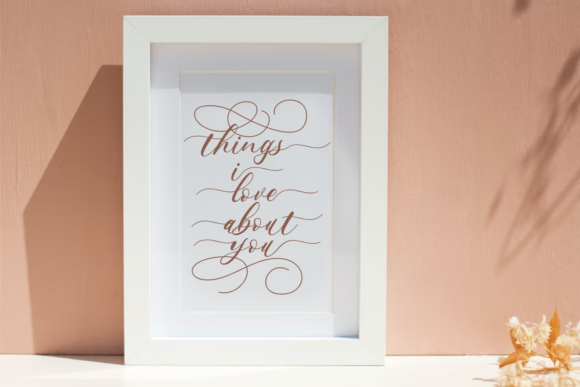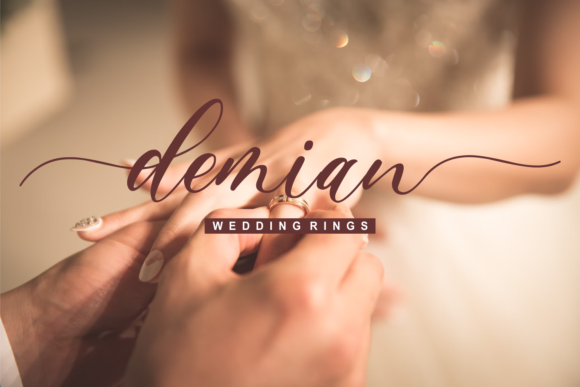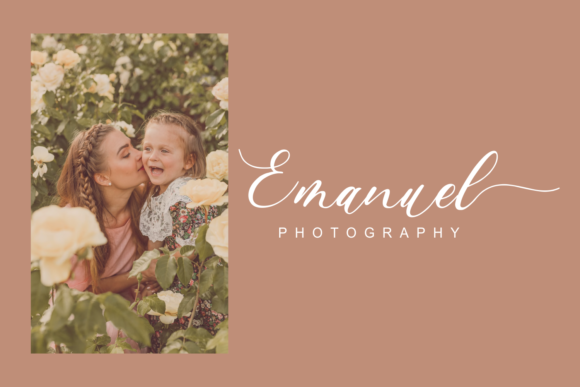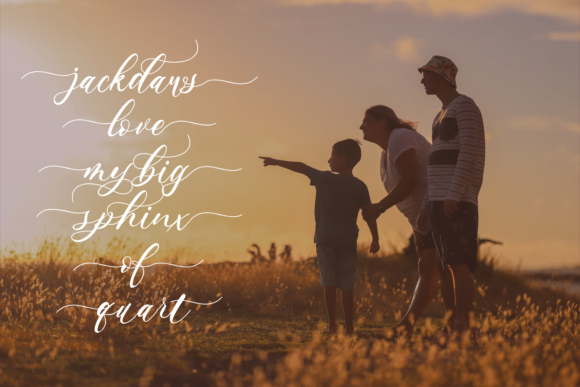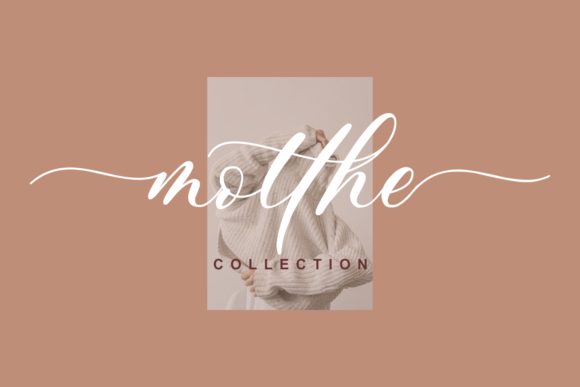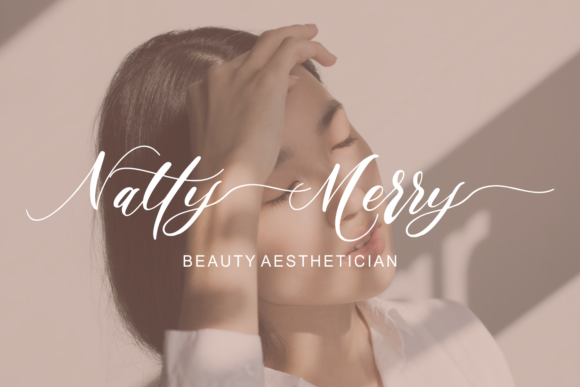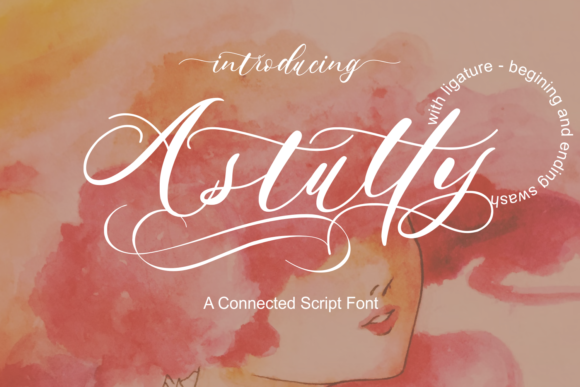
The Astutty Font: A Delicate and Fashionable Script for Creative Projects
I’ll never forget the time I was working on a branding project for a fashion client, and I just couldn’t seem to find the right font. The client wanted something elegant, yet modern; delicate, yet impactful. I scoured the internet, tried out dozens of fonts, but nothing seemed quite right. That was until I stumbled upon the Astutty font. ✨
It was love at first sight! The Astutty font is a delicate and fashionable script font that has become a staple in my design toolkit. In this article, I’ll share with you why I love this font, its features, and how to get the most out of it in your creative projects.
An Honest Review of Astutty Font
What I Love About Astutty Font
• ✨ Delicate and elegant: Astutty font is perfect for projects that require a touch of sophistication and glamour.
• ✅ Highly versatile: It can be used for a wide range of creative projects, from logos and t-shirt printing to creative products and more.
• 💫 Unique character: The font has a distinct personality that sets it apart from other script fonts.
• 🎨 OpenType features: Astutty font comes with a range of OpenType features, including glyphs and stylistic alternates, that allow for endless creative possibilities.
While I absolutely love the Astutty font, there are a few quirks to be aware of: 🤔
• ⚠️ Limited use in body text: Due to its delicate nature, Astutty font may not be the best choice for body text, especially in smaller sizes.
• ⚠️ Requires careful kerning: As with any script font, kerning can be a bit tricky, especially when using it in combination with other fonts.
The Story Behind Astutty Font
The Astutty font was designed by a team of typographers who wanted to create a font that would capture the essence of modern elegance. Inspired by the latest fashion trends and design movements, they crafted a font that’s both delicate and impactful.
Q: What is the Astutty font best used for?
A: The Astutty font is perfect for creative projects that require a touch of elegance and sophistication, such as logos, t-shirt printing, and creative products.
Q: Can I use Astutty font for body text?
A: While Astutty font can be used for body text, it’s not recommended due to its delicate nature. It’s best suited for headlines, titles, and short paragraphs.
Q: Does Astutty font come with OpenType features?
A: Yes, Astutty font comes with a range of OpenType features, including glyphs and stylistic alternates, that allow for endless creative possibilities.